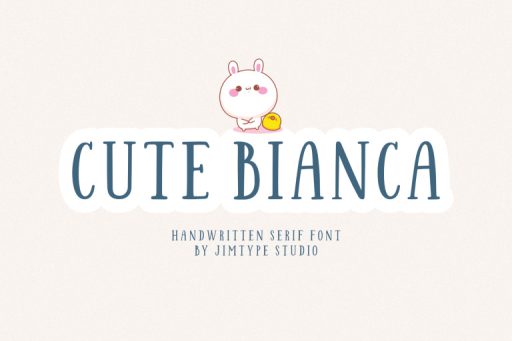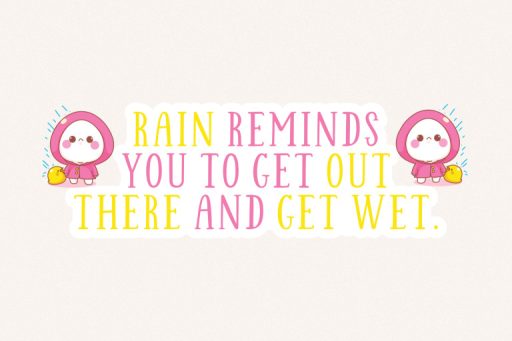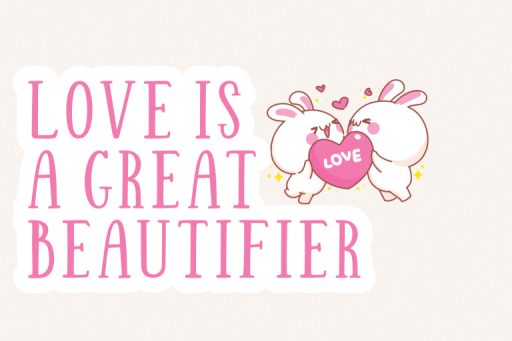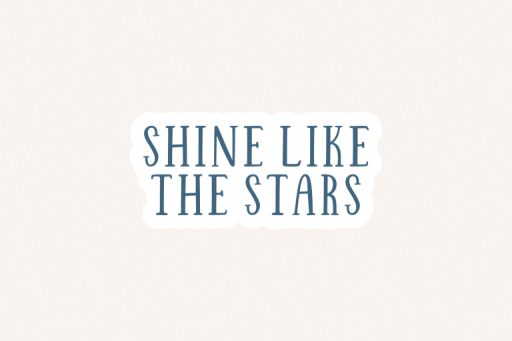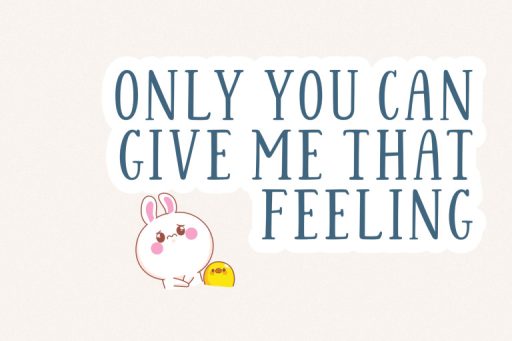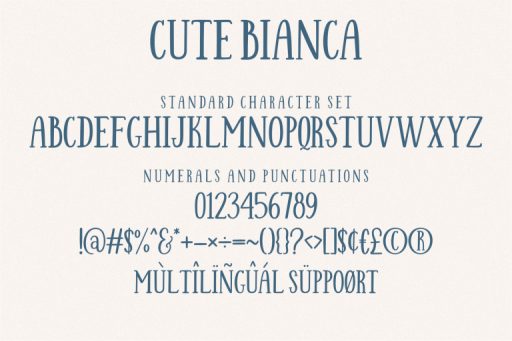
Cute Bianca - Farmhouse Quirky Font from Jimtype Studio
Cute Bianca
Cute Bianca – Quirky Serif
Meet Cute Bianca Font, a delightful Serif Handwritten typeface that adds a touch of charm to your creative endeavors. Tailored for branding, quotes, logos, stationery design, T-shirts, and beyond.
Cute Bianca Font is your go-to solution for projects that demand a blend of cuteness and sophistication. Whether you’re crafting a brand image, designing memorable quotes, or creating charming stationery and apparel, this font promises to make your work truly adorable.